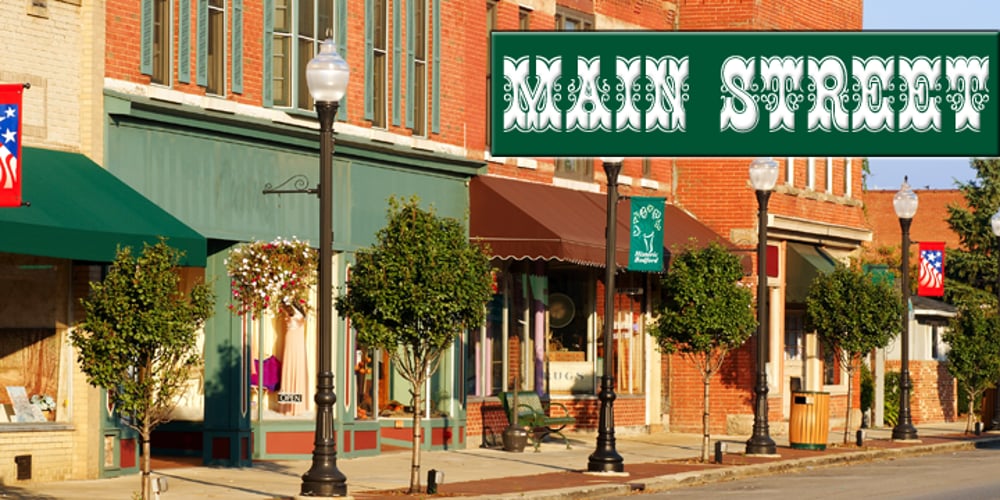
Main Street Font Family was designed by Michael Hagemann, Julius Herriet, Sr. and published by FontMesa. Main Street contains 3 styles and family package options. Main Street is a revival of the old font Soutache, the original version of this decorative alphabet was created in 1873 by Julius Herriet, a type designer active during the period marked by the Western expansion. Main Street with its split serifs and ornate scrollwork reflects the romantic splendor of the old west from fancy garb and Cowboy Saddles to Ice Cream Parlors and painted window signage. Main Street goes one step further by creating a base fill font which can be placed behind the regular Main Street font giving this font more of an inline appearance. You will need an application that allows layering of your fonts in order to take advantage of FontMesa Fill fonts.